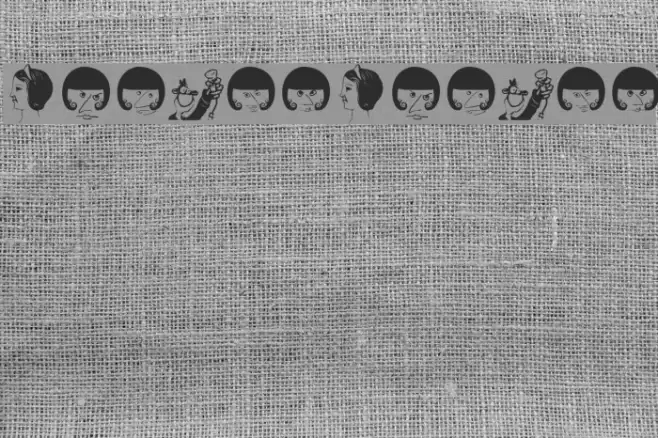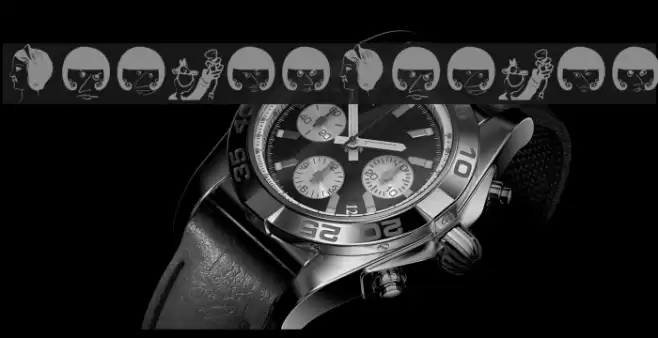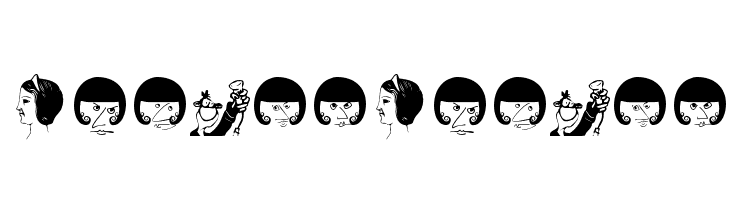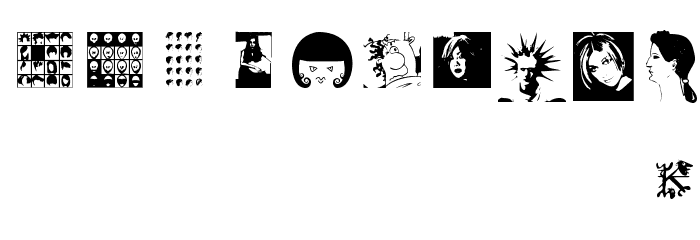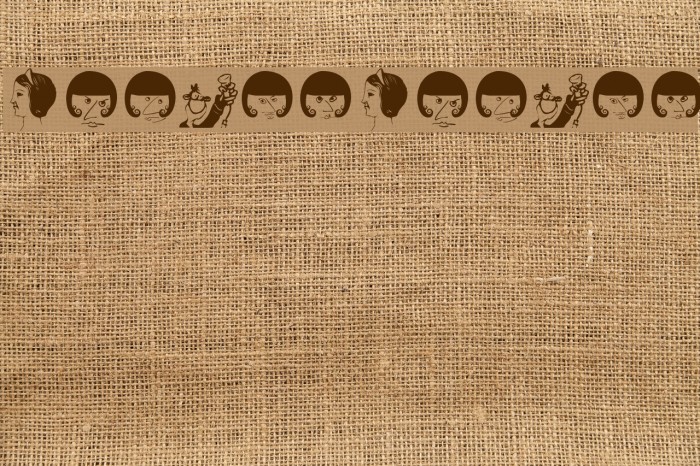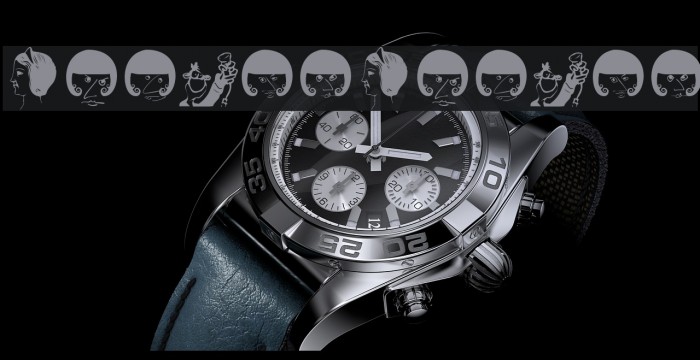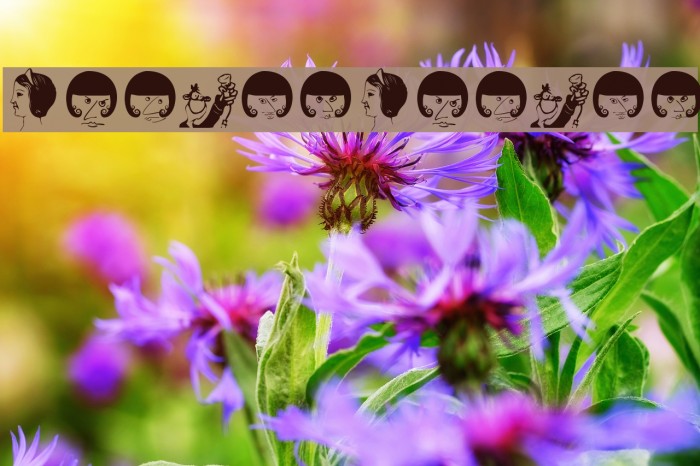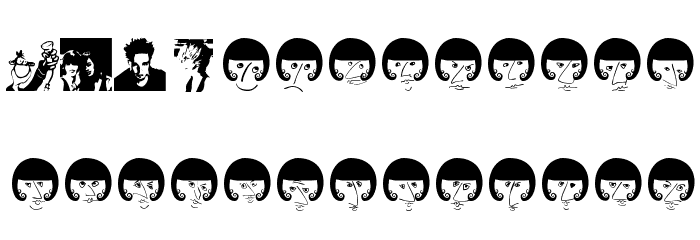
FigaroFigaro Font
FigaroFigaro Description
A decorative dingbat font featuring stylized illustrations of faces and head profiles, primarily of women with various hairstyles and expressions. The glyphs are highly detailed, with a hand-drawn, artistic quality, and each character is represented by a unique portrait or face design.
Decorative font with illustrated faces and head profiles from Uncategorized fonts.
- Proposed Projects: Posters, album covers, editorial illustrations, creative branding, event invitations, art projects.
- Overall Style: Decorative, Artistic, Hand-drawn
- Use Case: Logos, Posters, Illustrative headlines, Art pieces